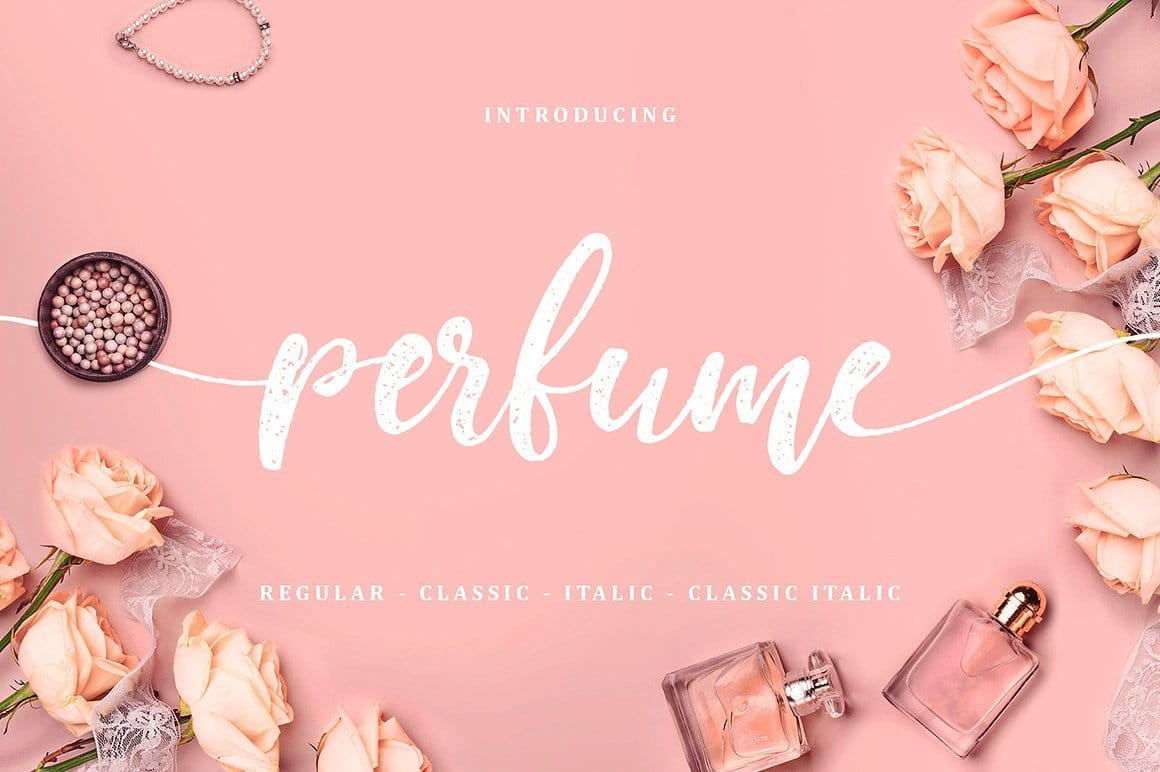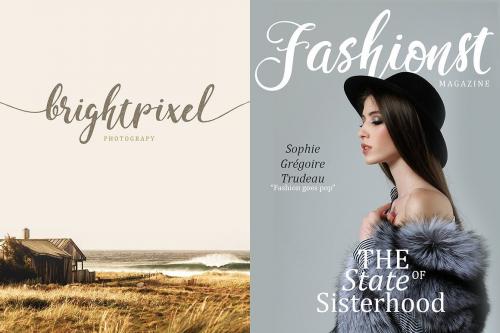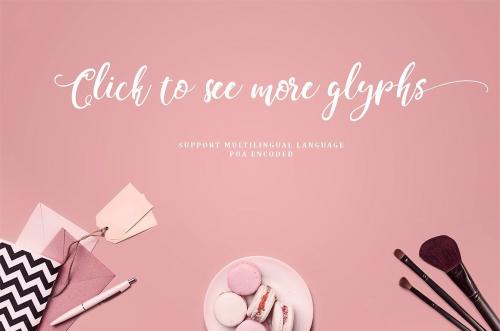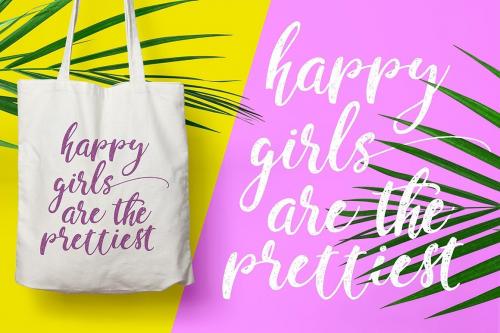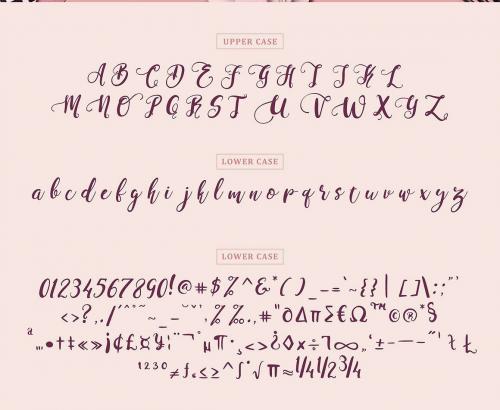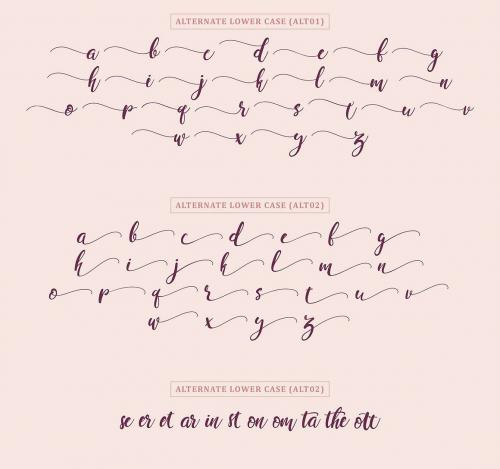
Perfume Classic Script Font Free
Perfume Classic Script Font is amazing lettering font, designed by Fontsgood. With lettering script style this font will perfect for many different project ex: quotes, blog header, poster, wedding, branding, logo, fashion, apparel, letter, invitation, stationery, etc.